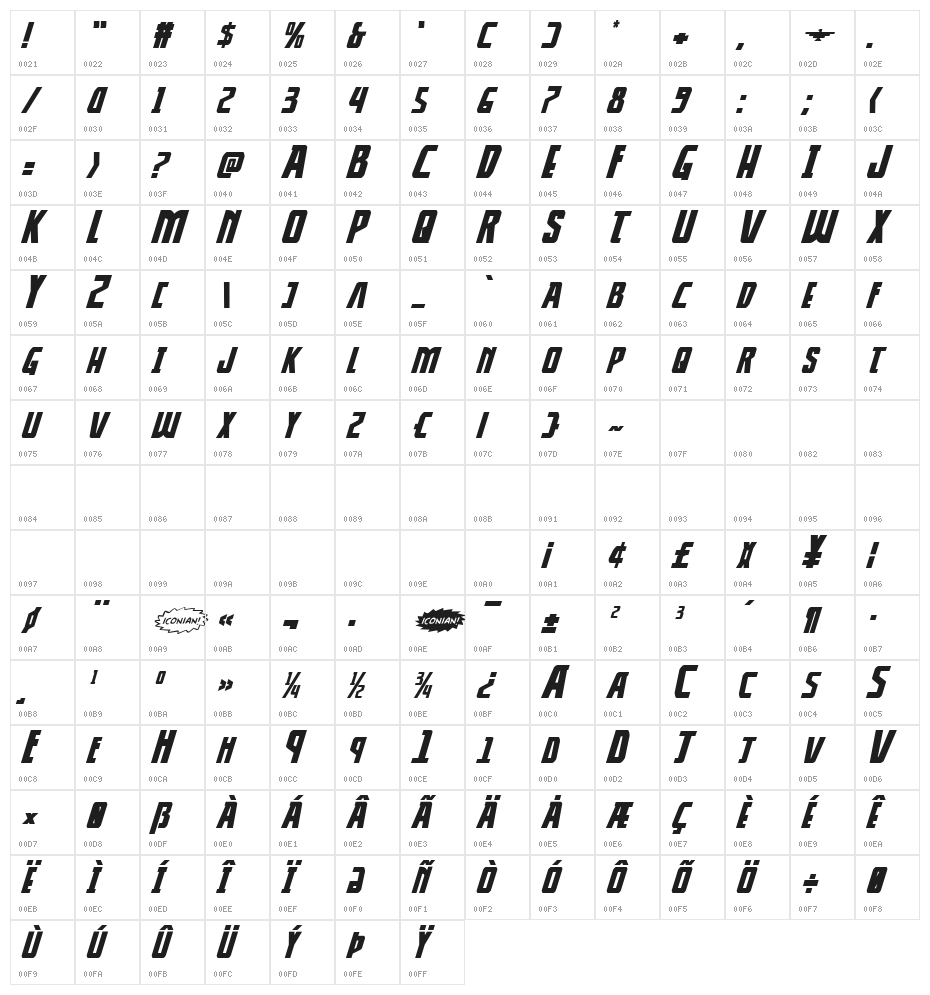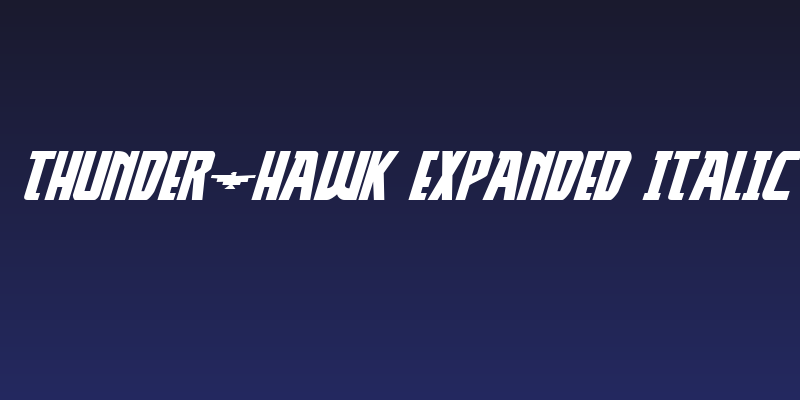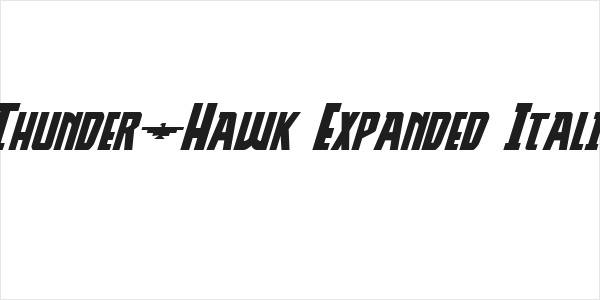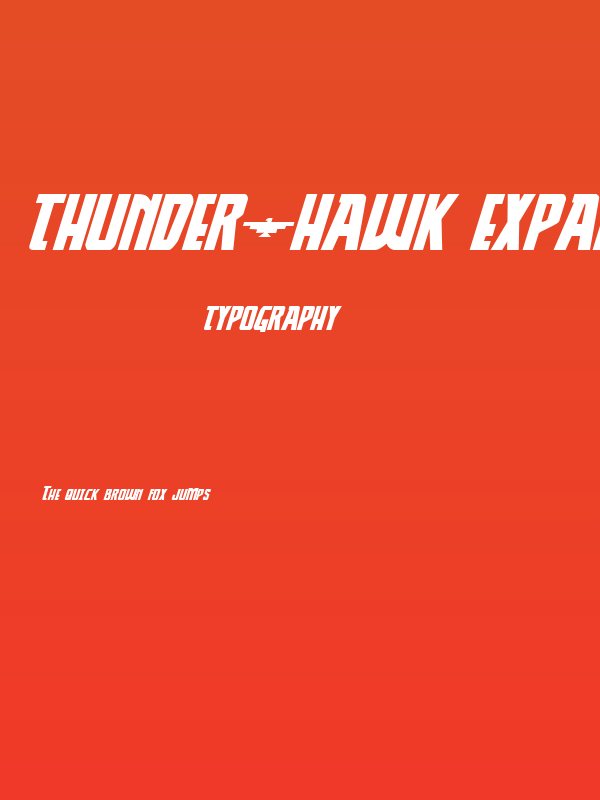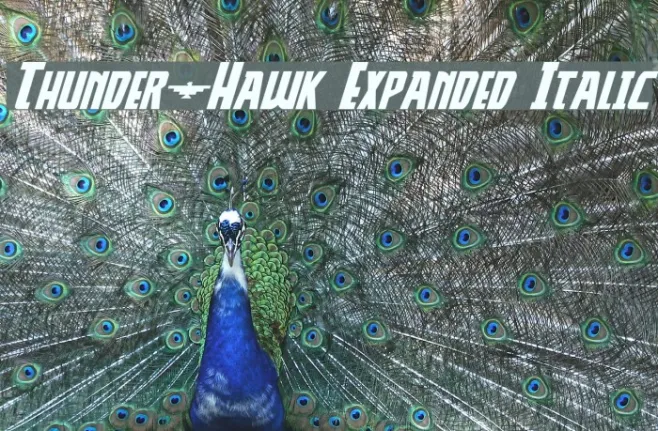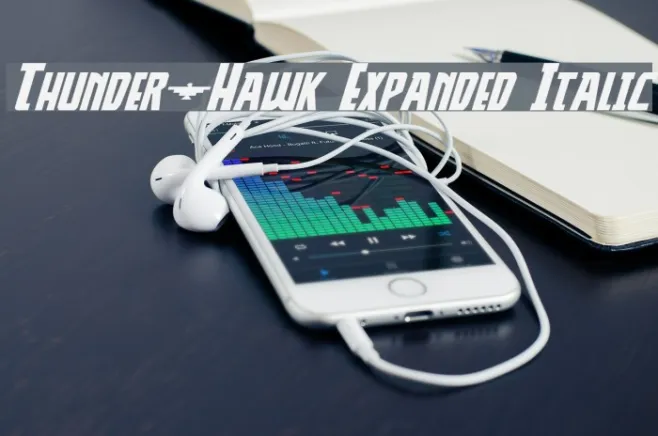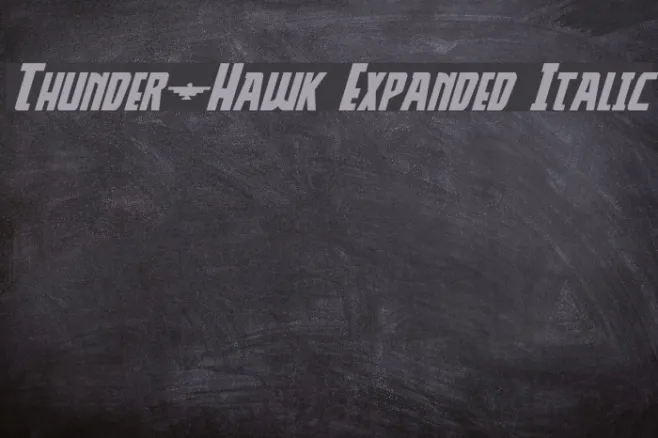
Thunder-Hawk Expanded Italic Font
Thunder-Hawk Expanded Italic Description
This font features a bold and dynamic style with an italicized slant, giving it a sense of motion and energy. The characters are expanded, providing a wide and impactful appearance. The design is modern and aggressive, with sharp angles and a strong presence. Each letter is distinct, with a consistent stroke width that enhances readability while maintaining a unique flair. The numbers and special characters follow the same bold and italicized style, ensuring a cohesive look across all elements. This font is ideal for projects that require a strong visual impact and a contemporary aesthetic.